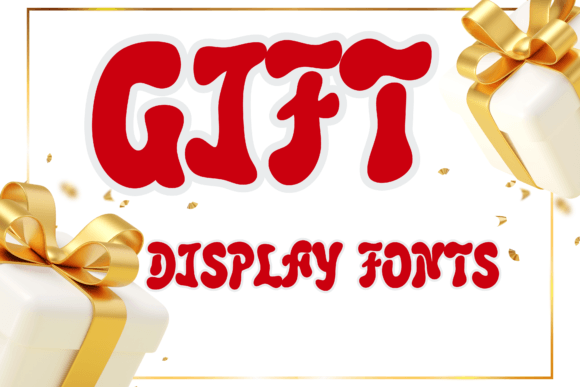
Gift: A Quirky Display Font for Editorial Design
Gift is a quirky display font that brings an immediate sense of personality to any editorial layout, making it an ideal choice for publishers and content creators seeking a unique visual voice. In the world of digital publishing, where reader attention spans are short and competition is fierce, the typography you choose sets the tone before a single word is read. This typeface is not merely a collection of letters; it is a design asset that transforms standard headlines into engaging focal points. Whether you are designing a monthly newsletter, a comprehensive ebook, or a series of social media graphics, Gift offers the distinctive character needed to elevate your brand identity.
Gift for Taking Notes and Personal Diary Entries in Digital Guides
When adapting Gift for taking notes or writing a diary within digital guides, the font's handwritten charm creates an intimate connection with the reader. Unlike rigid serif fonts that can feel distant, this display typeface mimics the fluidity of pen on paper, encouraging users to engage with the content as if they were part of a personal journal. For bloggers creating interactive workbooks or planners, using Gift for section headers and instructional text adds a layer of approachability that generic sans serif fonts often lack. It bridges the gap between professional design and personal expression, making complex instructions feel like friendly advice from a mentor. The slight irregularities in the strokes prevent the text from feeling sterile, which is crucial for content focused on self-improvement, mindfulness, or creative brainstorming.
Enhancing Greeting Cards and Printable Stationery Designs
The versatility of Gift shines when used for making greeting cards or printable stationery, offering a whimsical touch that mass-produced templates cannot replicate. Editorial designers often struggle to find a balance between readability and artistic flair, but this display font resolves that tension by providing high-impact visuals without sacrificing legibility at larger sizes. You can use Gift to create custom wedding invitations, holiday newsletters, or branded thank-you notes that stand out in a crowded inbox. Its quirky nature allows it to convey warmth and celebration, making it perfect for lifestyle brands and independent publishers who want their printed materials to feel handcrafted. By integrating this font into your printable product line, you add value and aesthetic consistency to every piece of physical mail or download.
Gift for Creating Banners and Social Media Content Graphics
For digital platforms where space is limited and impact is paramount, Gift serves as a powerful tool for banners and social media content graphics. When designing thumbnails for YouTube videos or featured images for blog posts, the bold, distinct shapes of these Fonts capture the eye instantly, driving higher click-through rates. The font's playful structure works exceptionally well against clean backgrounds, allowing text to pop without requiring heavy graphic overlays. Content creators can leverage Gift to establish a recognizable visual language across their channels, ensuring that their audience identifies their content immediately. Whether you are announcing a new course launch or highlighting a special offer, the unique character of Gift ensures your message is delivered with style and authority.
Branding Mugs, Apparel, and Merchandise with Gift Typography
Extending your brand beyond the screen, Gift is equally effective for other designs such as mugs, cards, and shirt printing, where durability and clarity are essential. Merchandising for authors, coaches, and influencers requires typography that looks good on both small tags and large fabric prints. Because Gift is a display font with strong structural integrity, it maintains its quirky personality even when scaled down or adapted for different textures. Publishers can use this font to create cohesive merchandise lines that complement their ebooks and digital courses, turning readers into brand ambassadors. The font's adaptability ensures that your logo or tagline remains legible and attractive whether it appears on a ceramic mug or a cotton t-shirt, reinforcing your brand identity across all touchpoints.
Pairing Gift with Serif and Sans Serif Fonts for Body Copy
To achieve a balanced editorial layout, pairing Gift with a highly readable serif font for body copy or a clean sans serif font for captions is a strategic move for modern typography. While Gift excels at capturing attention in headlines and pull quotes, it is generally too stylized for long-form reading. By combining it with a neutral typeface, you create a clear visual hierarchy that guides the reader through the content effortlessly. For example, using a classic serif for article text provides a foundation of trust and professionalism, while Gift adds bursts of energy in subheadings and chapter openers. This combination allows you to maintain the whimsical spirit of your publication without compromising the ease of reading, which is critical for retaining audience engagement in long articles and ebooks.
Optimizing Gift for Mobile Layouts and Epub Exports
Readability considerations for screen reading and mobile layouts are vital when incorporating Gift into digital products. As more users consume content on smartphones, the font must remain legible at smaller sizes and on varying screen resolutions. While Gift is best reserved for titles and accents, testing its performance on mobile devices ensures that your headings do not break the flow of the user experience. For PDF exports and ePubs, the font should be embedded correctly to preserve its quirks across different devices. Publishers should verify that the included styles, alternates, and ligatures render correctly in their intended formats, ensuring that the final output looks exactly as designed. This attention to detail guarantees that your publication feels polished and professional, regardless of how the reader accesses it.
In conclusion, Gift is more than just a decorative element; it is a versatile tool that enhances the narrative power of your content. From enhancing the intimacy of a personal diary entry to commanding attention on a promotional banner, this display font adapts to the diverse needs of the modern publisher. By thoughtfully integrating Gift into your editorial strategy, you create a distinctive visual identity that resonates with readers and elevates the overall quality of your work. Whether you are designing for print, web, or merchandise, the unique character of these Fonts will help your brand stand out in a saturated market.